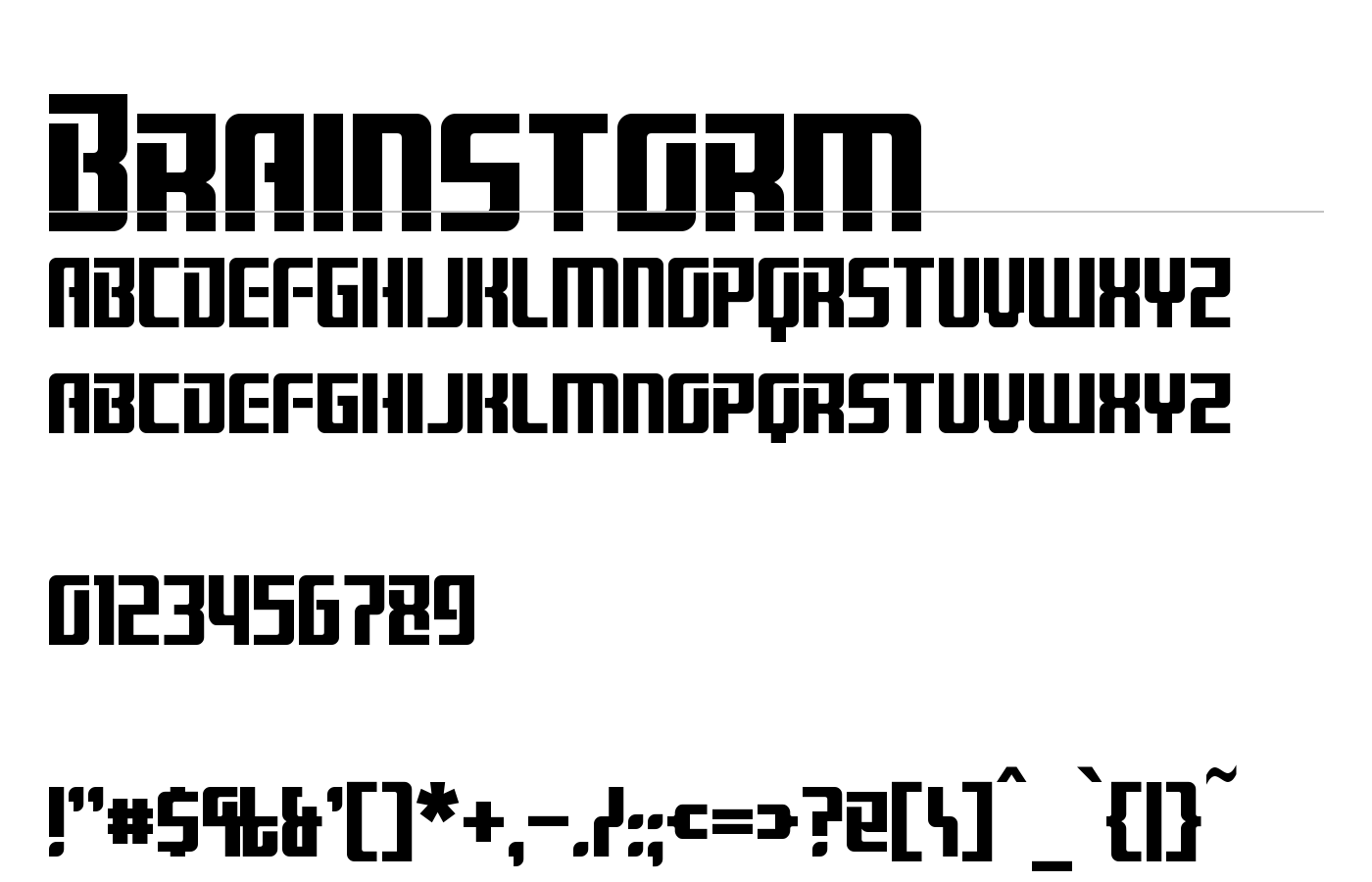
Brainstorm Font is a bold, condensed sans serif with a strong geometric and futuristic feel, characterized by its blocky letterforms and sharp edges. Its high contrast in stroke width and unique letter shapes give it a dynamic, tech-inspired personality, making it ideal for attention-grabbing headlines, logos, and modern branding where a sleek and edgy look is desired.
Brainstorm Font
About Brainstorm Font